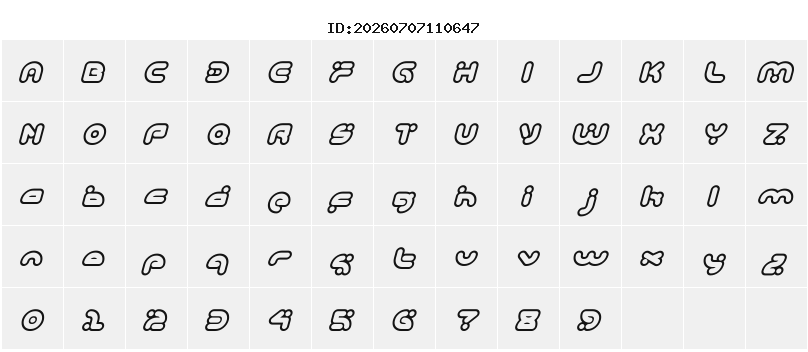
DeliciousOutline Oblique Preview
• Font Name: DeliciousOutline Oblique
• Full Font Name: DeliciousOutline Oblique
About DeliciousOutline Oblique.ttf
DeliciousOutline Oblique.ttf is a modern, elegant sans-serif font designed for ultimate readability and visual harmony. Perfect for branding, headlines, web design, and print materials.